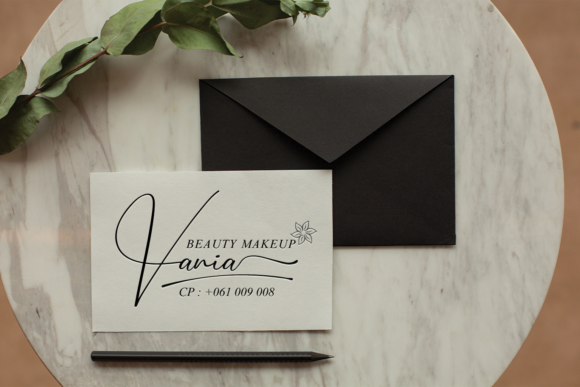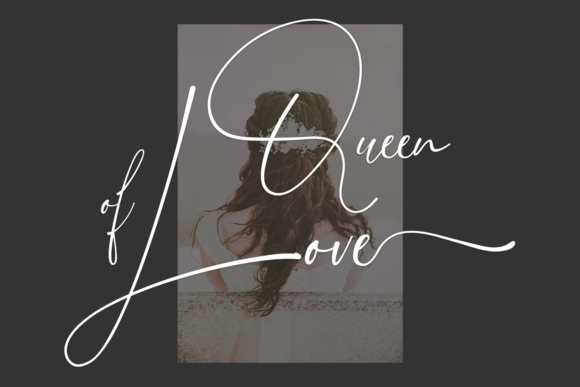
Romance Font
db-ku.com - Script & Handwritten -- Romance is a romantic and thin lettered calligraphy script font featuring characters that seem to dance along the baseline. It will add a luxurious spark to any creative design or project!